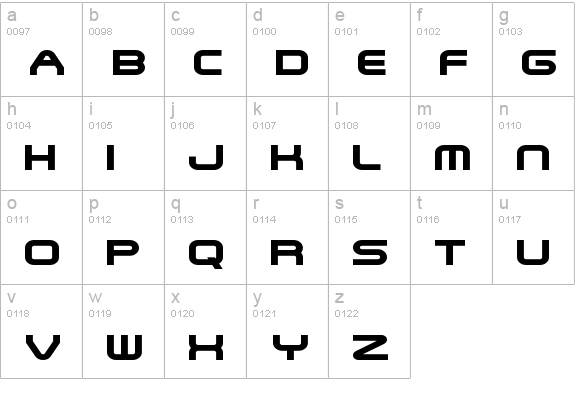
ShuttleExtended Normal Font Details
ShuttleExtended Normal is the standard, neutral variant in the ShuttleExtended typeface family \xE2\x80\x94 well suited to general body text, paragraphs, and standard typographic work.
ShuttleExtended Normal font is a visually striking and versatile typeface that is perfect for various design projects. With its clean lines and modern aesthetic, this font adds a touch of elegance to any text. Whether you're working on a logo, poster, or website design, ShuttleExtended Normal font will elevate your work to new heights. This font offers a wide range of characters, including uppercase and lowercase letters, numbers, and punctuation marks, allowing you to create stunning and professional-looking designs. Its smooth curves and balanced spacing ensure excellent legibility, making it suitable for both headlines and body text. One of the best things about ShuttleExtended Normal font is that it is freely available to download at FontsMarket.com. This means that you can easily access and use this font in your projects without any cost. Whether you're a professional designer or a hobbyist, having access to high-quality fonts for free is a huge advantage. So, why wait? Enhance your designs and bring them to life with ShuttleExtended Normal font. Download it for free today at FontsMarket.com and unlock a world of creative possibilities.